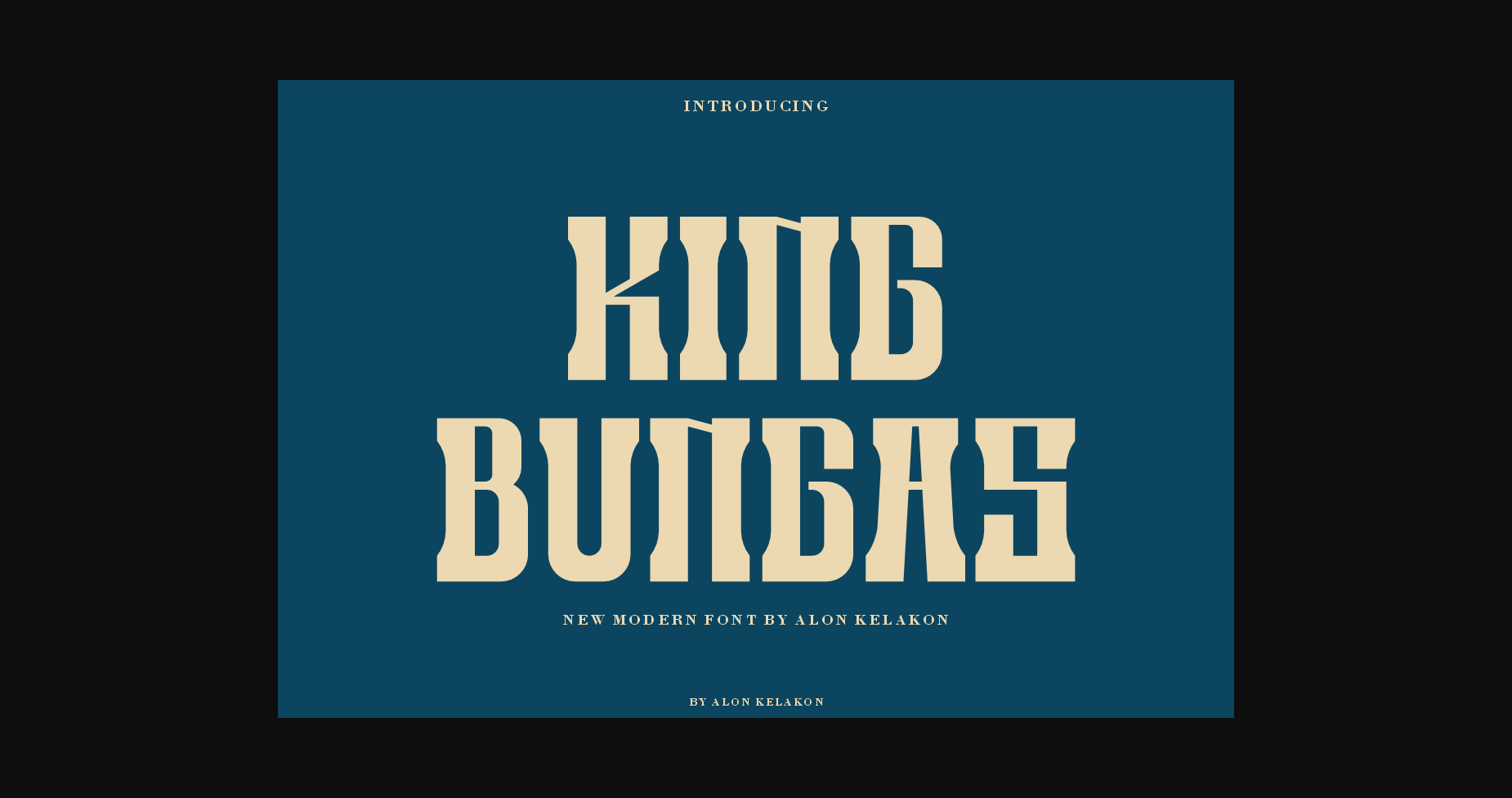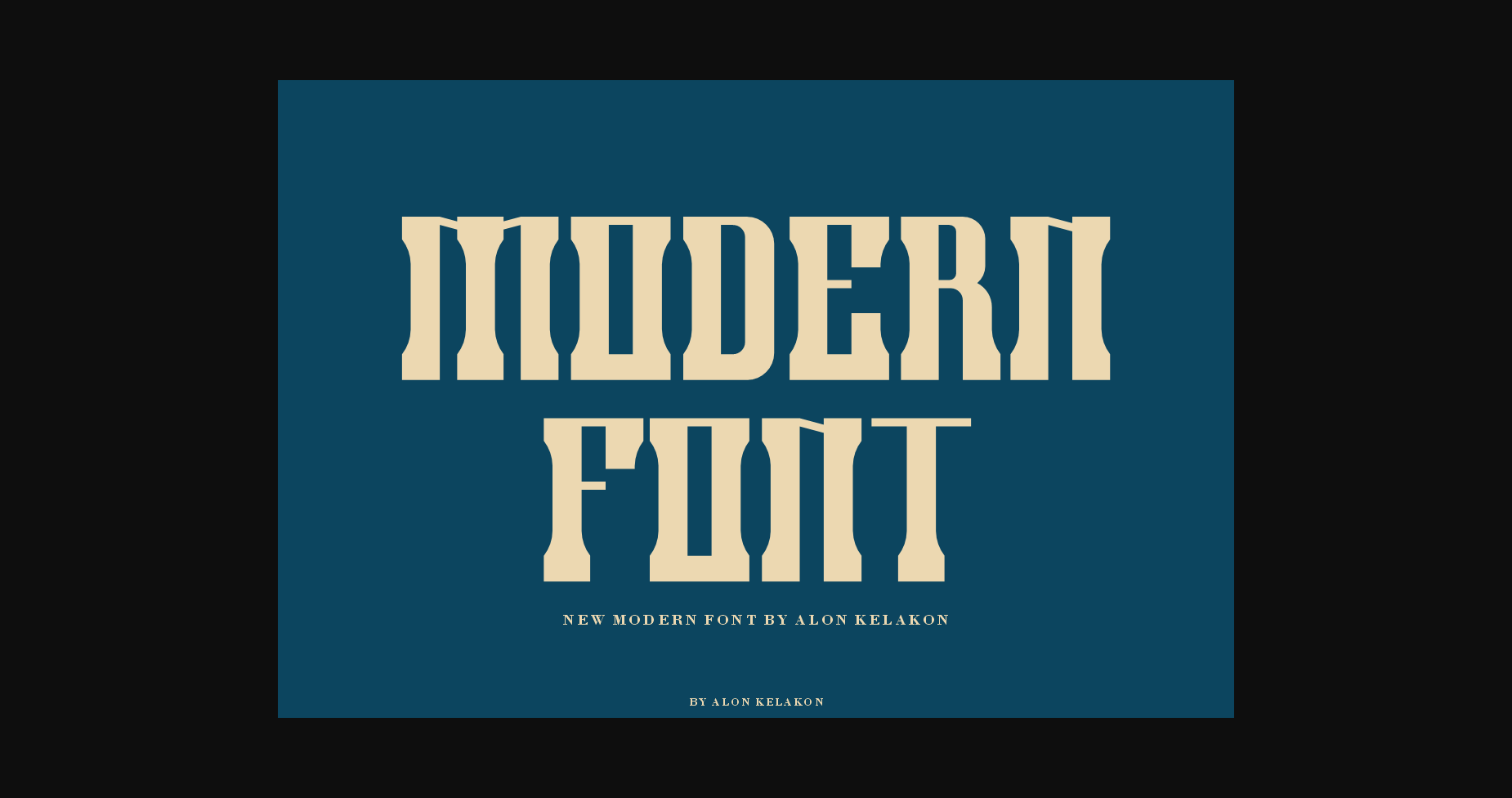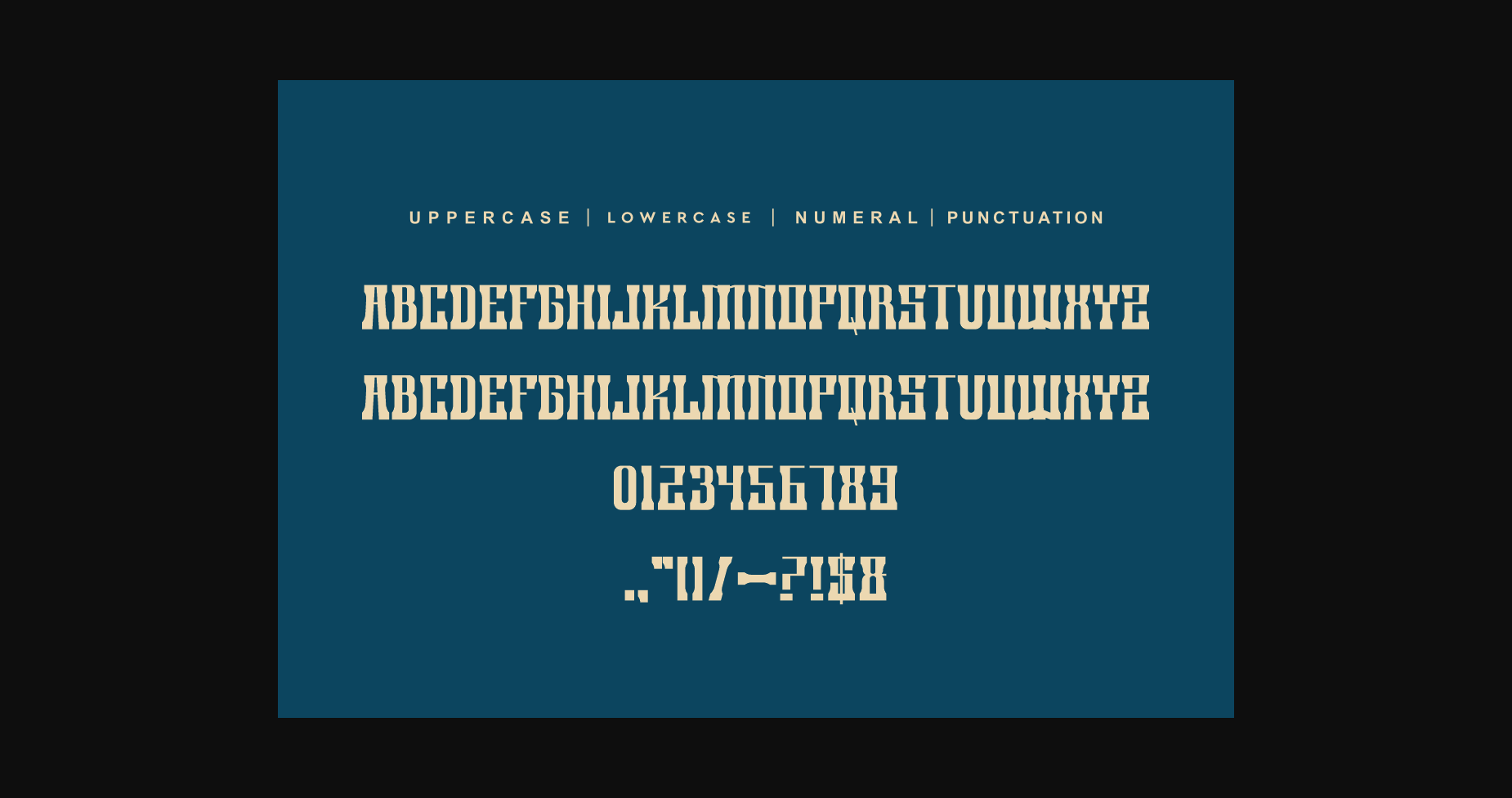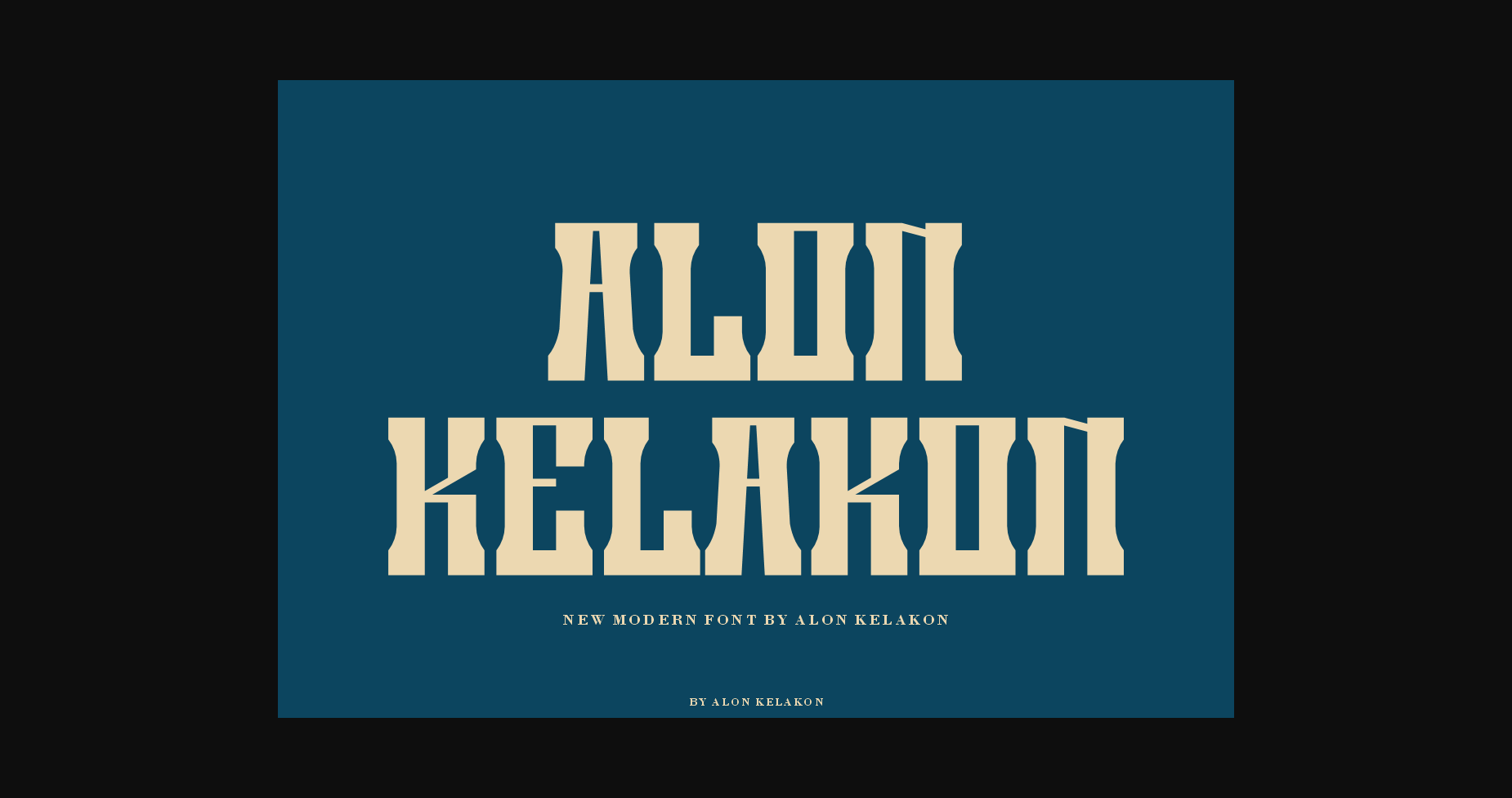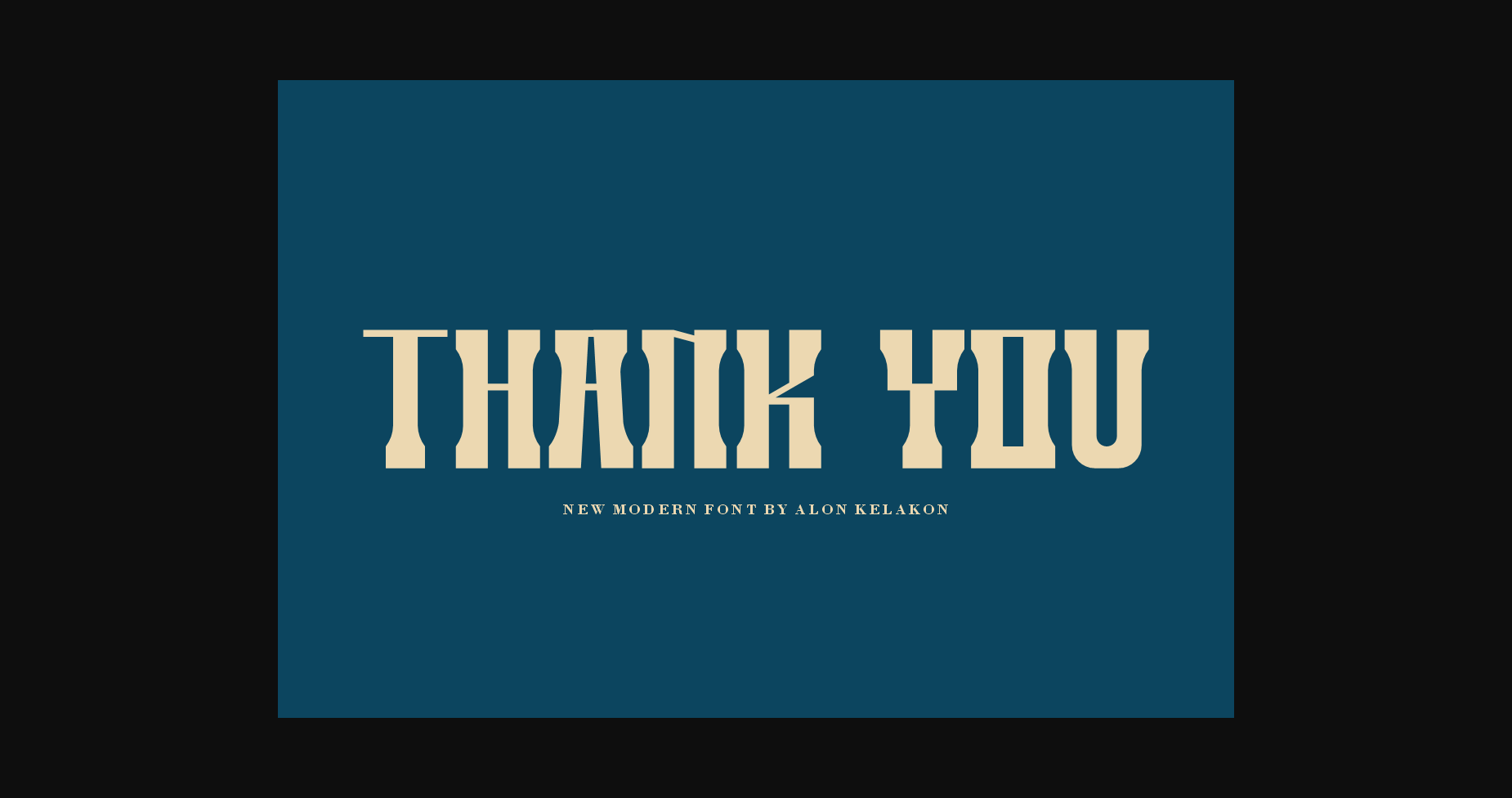
HomeSans Serif FontsKing Bungas Font Sans Serif Fonts King Bungas Font FacebookTwitterPinterestWhatsApp 1 of 7 ... King Bungas Font Poster 2... King Bungas Font Poster 3... King Bungas Font Poster 4... King Bungas Font Poster 5... King Bungas Font Poster 6... King Bungas Font Poster 7... About King Bungas Font is unique. Ready to use for your design like labeling, clothing, movie screen, poster, movie title, gigs, album covers, logos, and much more. DOWNLOAD NOW People also explored Black Jacky Font Melinda Font Mensionery Bold Font Hello Medhiza Font Big Tales Font Wellyon Font Sweet Bunny Font Snowlake Font Lucinda Font 160 0 TagsKing Bungas Font Previous articleAvageri Line FontNext articleKeynort Font LEAVE A REPLY Cancel reply Comment: Please enter your comment! Name:* Please enter your name here Email:* You have entered an incorrect email address! Please enter your email address here Website: Save my name, email, and website in this browser for the next time I comment. Personal Use Free Berry Personal Use Free Read more about this font Scoothlane Personal Use Free Read more about this font Zroest Personal Use Free Read more about this font Hollow Personal Use Free Read more about this font BLOG Free Fonts Risk: Why Free Fonts Can Be Dangerous for Designers Free Fonts Risk: Why Free Fonts Can Be Dangerous for Designers Using free fonts is a common practice in web and graphic design. However, the... Transform Your Website: Elevate Your Typography with 7 Best Web Font Generators Best Fonts for YouTube Videos: Make Your Thumbnails Stand Out Free vs Paid Fonts: Why Investing in Premium Fonts Is Worth It